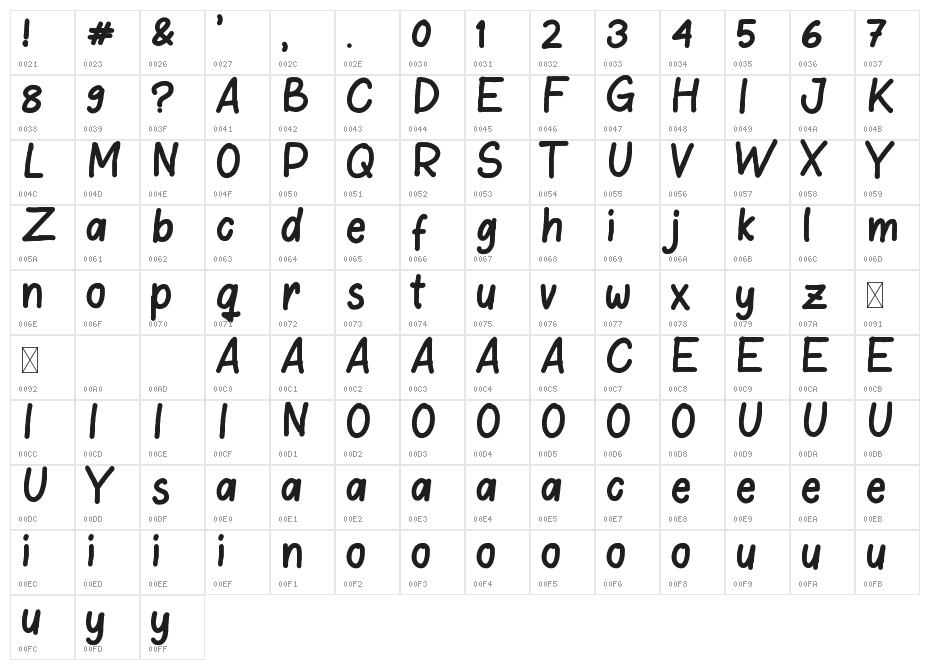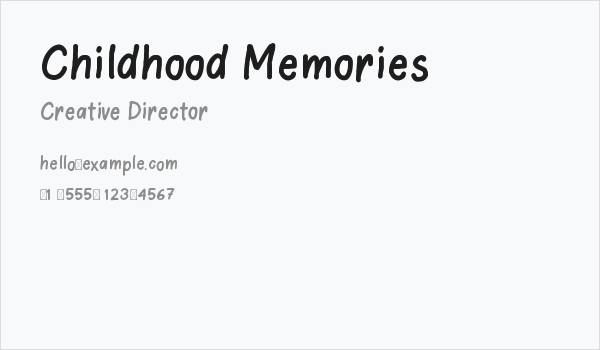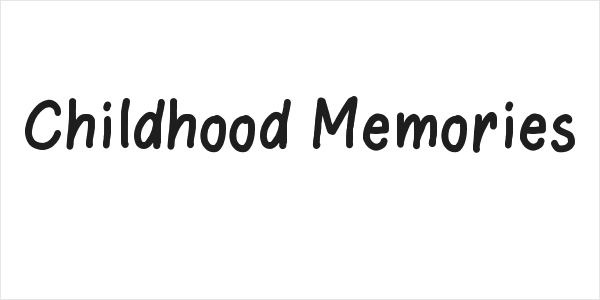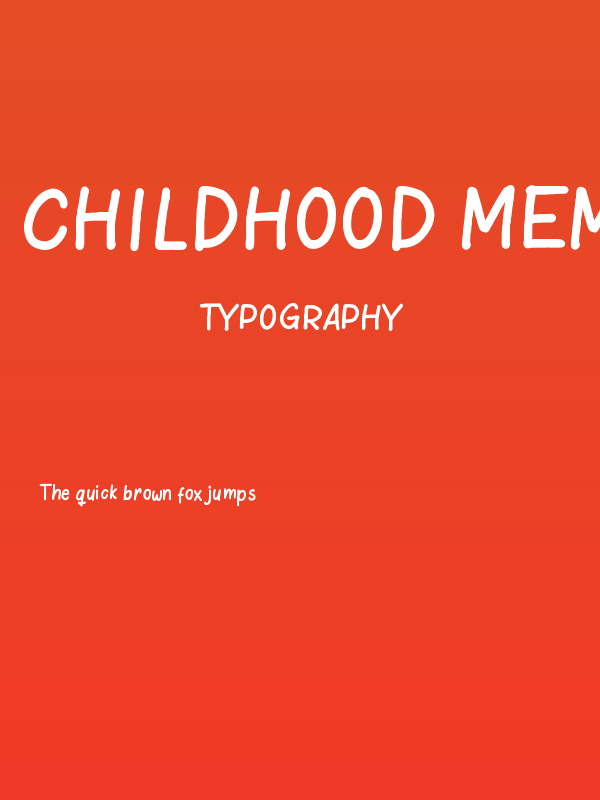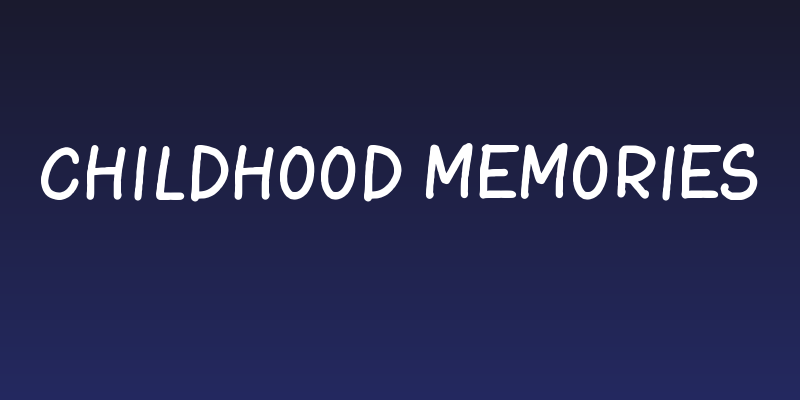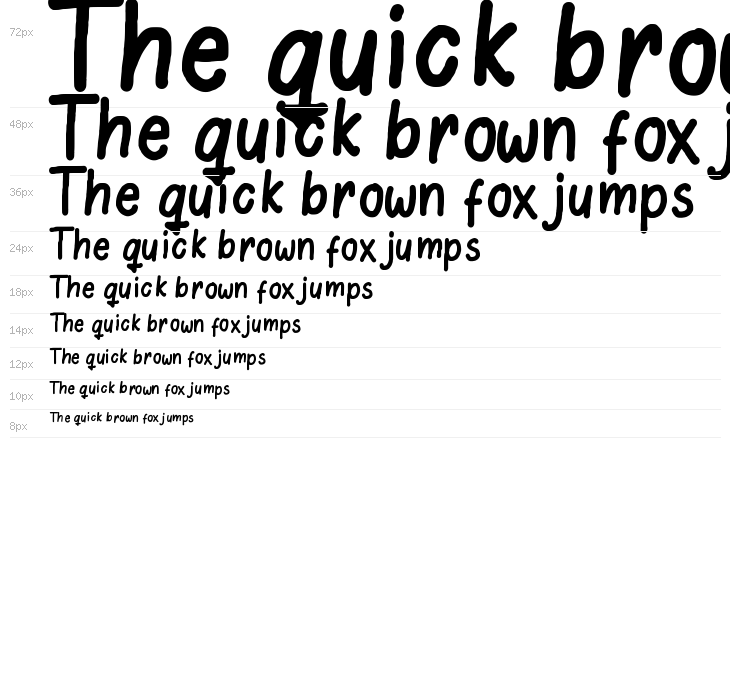
Childhood Memories Font
Childhood Memories Description
This font exudes a playful and nostalgic charm, reminiscent of handwritten notes from childhood. The characters are rounded and slightly irregular, giving them a friendly and approachable appearance. The uppercase and lowercase letters maintain a consistent style, with a slight tilt that adds to the whimsical feel. The numbers and special characters are equally playful, ensuring a cohesive look across all text. This font is perfect for projects that aim to evoke a sense of fun and innocence, making it ideal for children's books, playful branding, or any design that requires a touch of nostalgia.
Overall StylePlayful, Nostalgic
Use CaseHeadlines, Logos, Informal Text
Proposed ProjectsChildren's books, playful branding, nostalgic designs, greeting cards, educational materials.